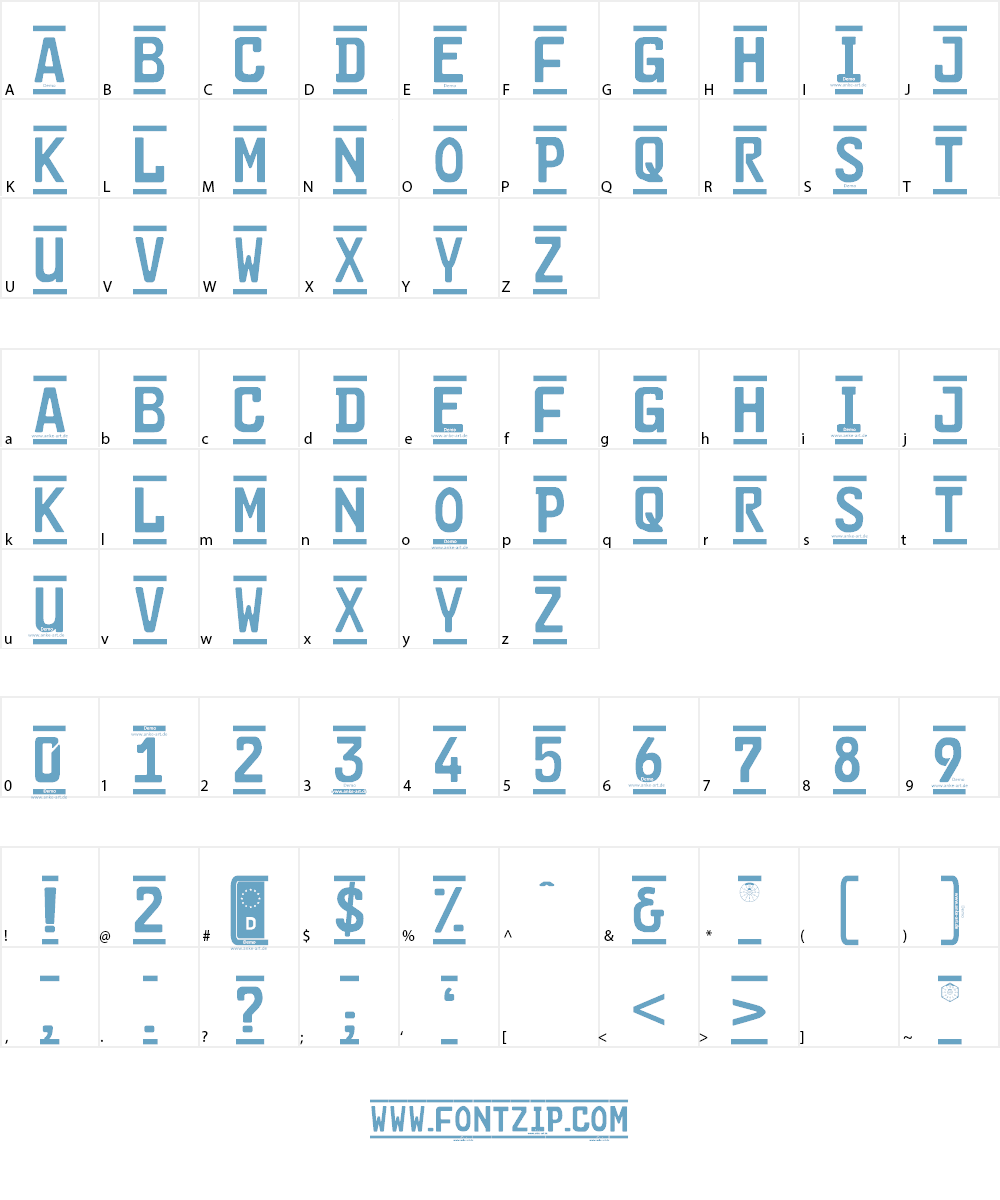
I rebuilt the font and made two versions. One with the characteristic number plate frame around it - put parentheses around your sample to see the effect - and one just plain.